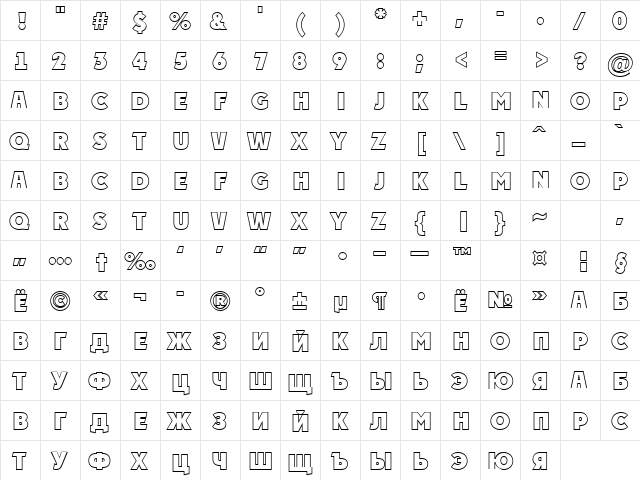
a_PlakatTitulOtl ExtraBold
Design Context for a_PlakatTitulOtl Typeface
a_PlakatTitulOtl is a composed and adaptable typeface that performs quietly and consistently across a wide range of design contexts. Its bold stroke weight gives it real presence on the page.